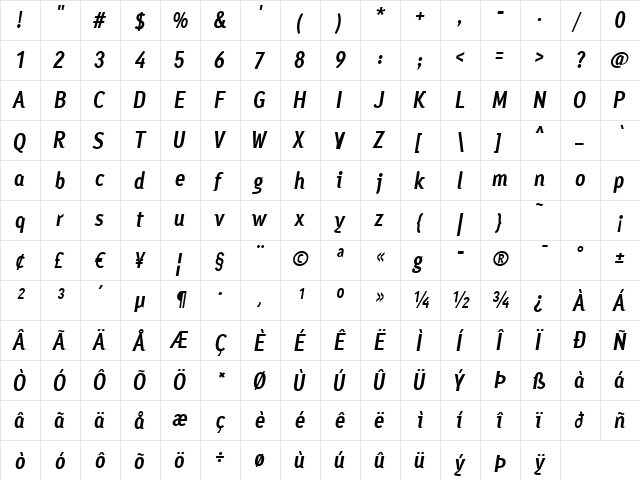
Ayumi Bold Italic
Design Context for Ayumi Bold Typeface
Ayumi Bold is a composed and adaptable typeface that performs quietly and consistently across a wide range of design contexts. The dynamic lean of this cut emphasises speed and emphasis in any layout. The heavy weight commands attention and anchors typographic hierarchies.
Pro Tip: Use Ayumi Bold for emphasis, pull quotes, and subheadings where its slanted energy can add rhythm to the layout.